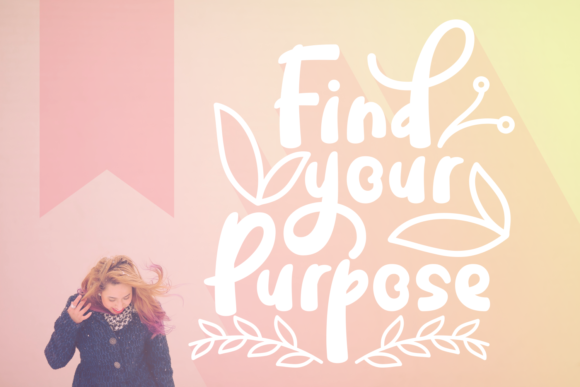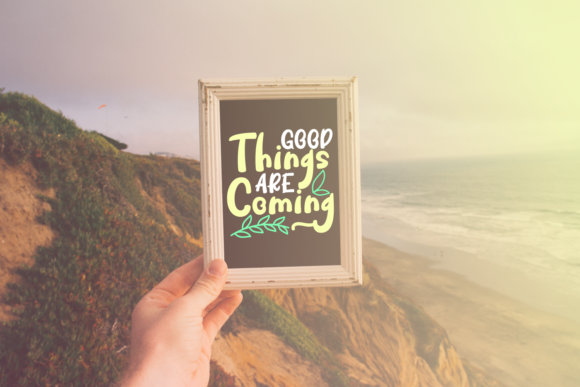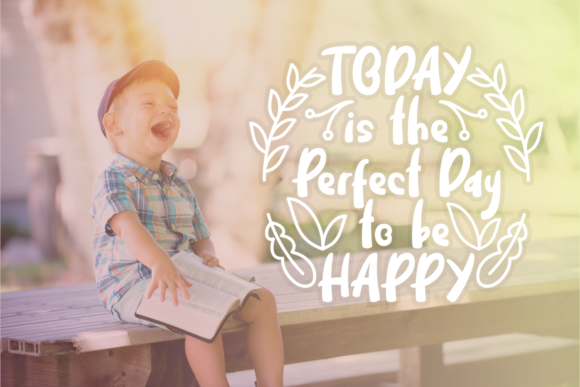
Find Your Purpose Font
About Find Your Purpose Font
Find Your Purpose is a cute and beautiful handwritten font with an organic feel. It will turn any design project into a stand out.